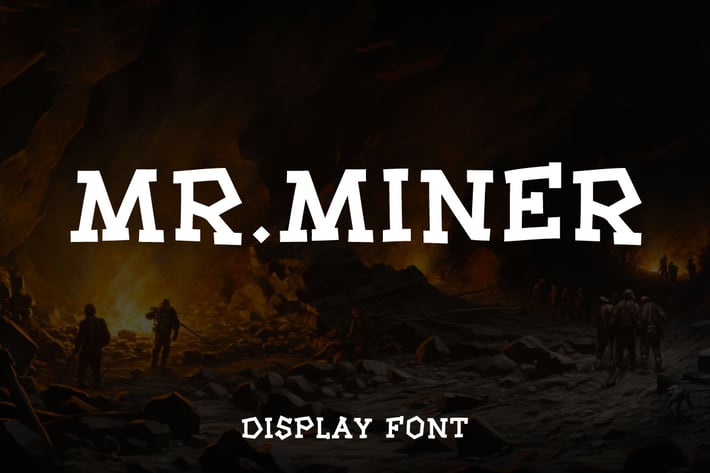
Mr. Miner - Display Font
Introducing our captivating Mr. Miner – a typeface that demands attention and exudes confidence. This font is a striking representation of boldness, designed to make a powerful impact in any project it graces. With strong, thick strokes and a commanding presence, this typeface is ideal for making a statement in headlines, titles, and any text that requires a bold touch.
Mr. Miner features a perfect balance between elegance and assertiveness, making it versatile for a wide range of applications. Its distinct characters and pronounced lines ensure clarity and readability even at larger sizes, making it an excellent choice for posters, banners, and branding materials where visibility is key.
Whether you're working on a logo, a book cover, or a website header, Mr. Miner will lend your project a sense of confidence and make a lasting impression on your audience. Elevate your design with this commanding typeface, and let your words speak with the boldness they deserve.